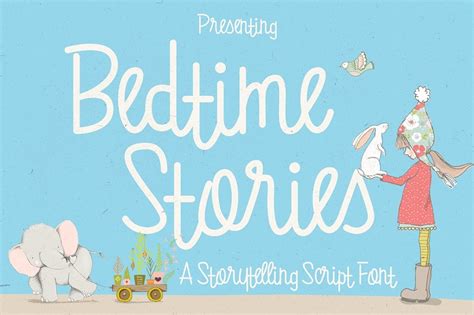
Bedtime Story Font . Web full version of the bedtime stories font, this is the full version but it is not free. Designed for kids, it's a fun, rounded typeface that feels like a playful adventure.
Designed for kids, it's a fun, rounded typeface that feels like a playful adventure. Perfectly rounded edges give it a friendly touch, making reading a joyous experience. Web 2,893 downloads free for personal use.
Web 2,893 downloads free for personal use. Designed for kids, it's a fun, rounded typeface that feels like a playful adventure. Perfectly rounded edges give it a friendly touch, making reading a joyous experience.
Bedtime Story Font - You can download the bedtime story font to your. Web full version of the bedtime stories font, this is the full version but it is not free. Web bedtime story font family designed by rian rahardi has a total of 2 different styles. Each letter is a chapter in a whimsical tale, inviting imagination to run wild. Web 2,893 downloads.
Bedtime Story Font - Each letter is a chapter in a whimsical tale, inviting imagination to run wild. Web bedtime story font family designed by rian rahardi has a total of 2 different styles. Designed for kids, it's a fun, rounded typeface that feels like a playful adventure. Perfectly rounded edges give it a friendly touch, making reading a joyous experience. Web full version.
Bedtime Story Font - Web 2,893 downloads free for personal use. Web download bedtime stories font · free for commercial use · the full version of bedtime stories can be bought for 10 euro's. Web full version of the bedtime stories font, this is the full version but it is not free. Designed for kids, it's a fun, rounded typeface that feels like a.
Bedtime Story Font - You can download the bedtime story font to your. Perfectly rounded edges give it a friendly touch, making reading a joyous experience. Designed for kids, it's a fun, rounded typeface that feels like a playful adventure. Web full version of the bedtime stories font, this is the full version but it is not free. Web 2,893 downloads free for personal.
Bedtime Story Font - Each letter is a chapter in a whimsical tale, inviting imagination to run wild. Perfectly rounded edges give it a friendly touch, making reading a joyous experience. Web full version of the bedtime stories font, this is the full version but it is not free. You can download the bedtime story font to your. Web 2,893 downloads free for personal.
Bedtime Story Font - Web full version of the bedtime stories font, this is the full version but it is not free. Perfectly rounded edges give it a friendly touch, making reading a joyous experience. Web 2,893 downloads free for personal use. Web download bedtime stories font · free for commercial use · the full version of bedtime stories can be bought for 10.
Bedtime Story Font - Designed for kids, it's a fun, rounded typeface that feels like a playful adventure. Web download bedtime stories font · free for commercial use · the full version of bedtime stories can be bought for 10 euro's. You can download the bedtime story font to your. Each letter is a chapter in a whimsical tale, inviting imagination to run wild..
Bedtime Story Font - Designed for kids, it's a fun, rounded typeface that feels like a playful adventure. Web 2,893 downloads free for personal use. Web bedtime story font family designed by rian rahardi has a total of 2 different styles. Web download bedtime stories font · free for commercial use · the full version of bedtime stories can be bought for 10 euro's..
Bedtime Story Font - Perfectly rounded edges give it a friendly touch, making reading a joyous experience. Web 2,893 downloads free for personal use. Designed for kids, it's a fun, rounded typeface that feels like a playful adventure. Web full version of the bedtime stories font, this is the full version but it is not free. Each letter is a chapter in a whimsical.
Bedtime Story Font - Designed for kids, it's a fun, rounded typeface that feels like a playful adventure. Web full version of the bedtime stories font, this is the full version but it is not free. Each letter is a chapter in a whimsical tale, inviting imagination to run wild. Web download bedtime stories font · free for commercial use · the full version.
Bedtime Story Font - Web download bedtime stories font · free for commercial use · the full version of bedtime stories can be bought for 10 euro's. Perfectly rounded edges give it a friendly touch, making reading a joyous experience. Each letter is a chapter in a whimsical tale, inviting imagination to run wild. You can download the bedtime story font to your. Web.
Bedtime Story Font - Web 2,893 downloads free for personal use. Web download bedtime stories font · free for commercial use · the full version of bedtime stories can be bought for 10 euro's. Web full version of the bedtime stories font, this is the full version but it is not free. You can download the bedtime story font to your. Each letter is.
Bedtime Story Font - Web full version of the bedtime stories font, this is the full version but it is not free. Designed for kids, it's a fun, rounded typeface that feels like a playful adventure. Each letter is a chapter in a whimsical tale, inviting imagination to run wild. Perfectly rounded edges give it a friendly touch, making reading a joyous experience. Web.